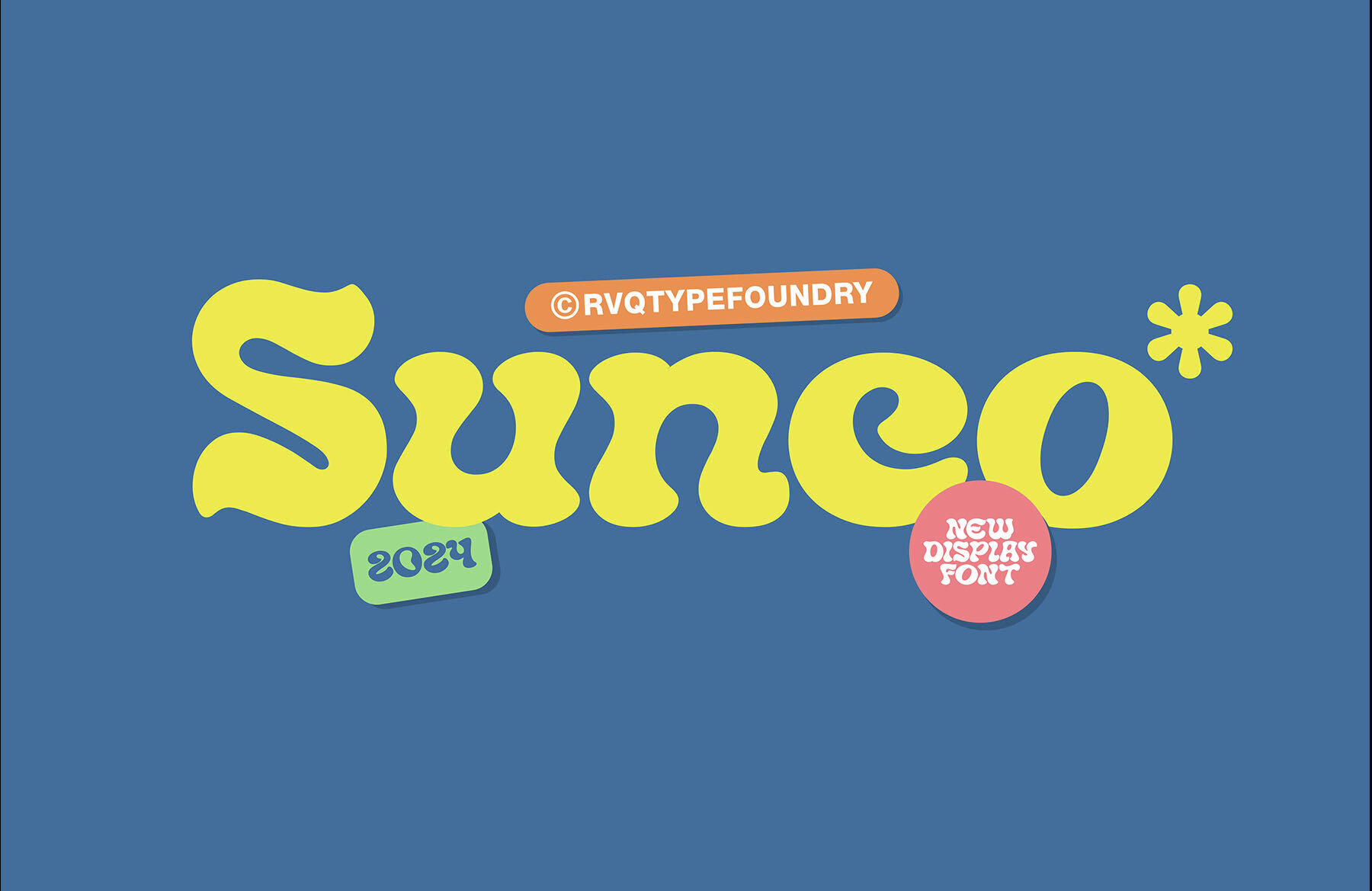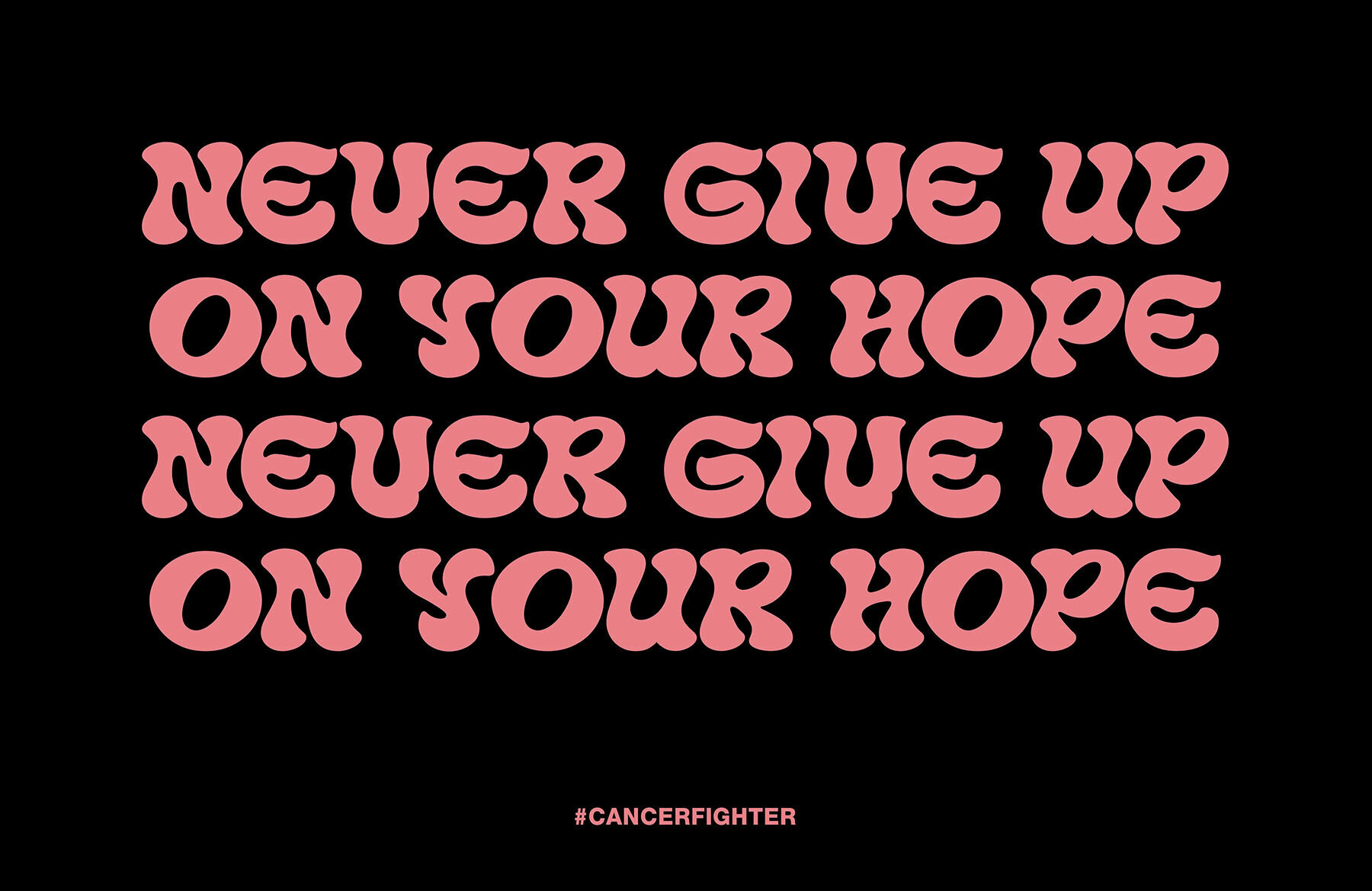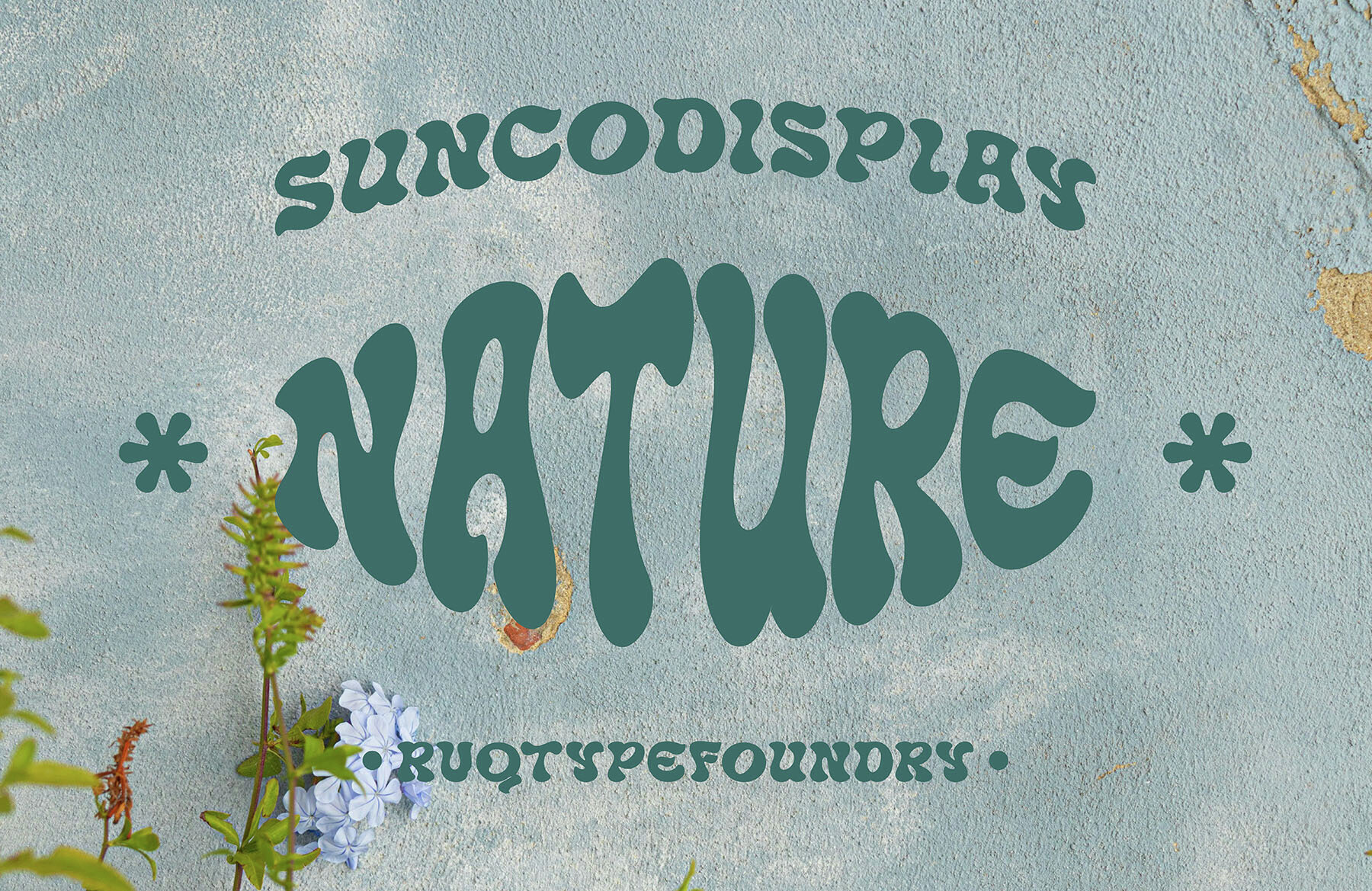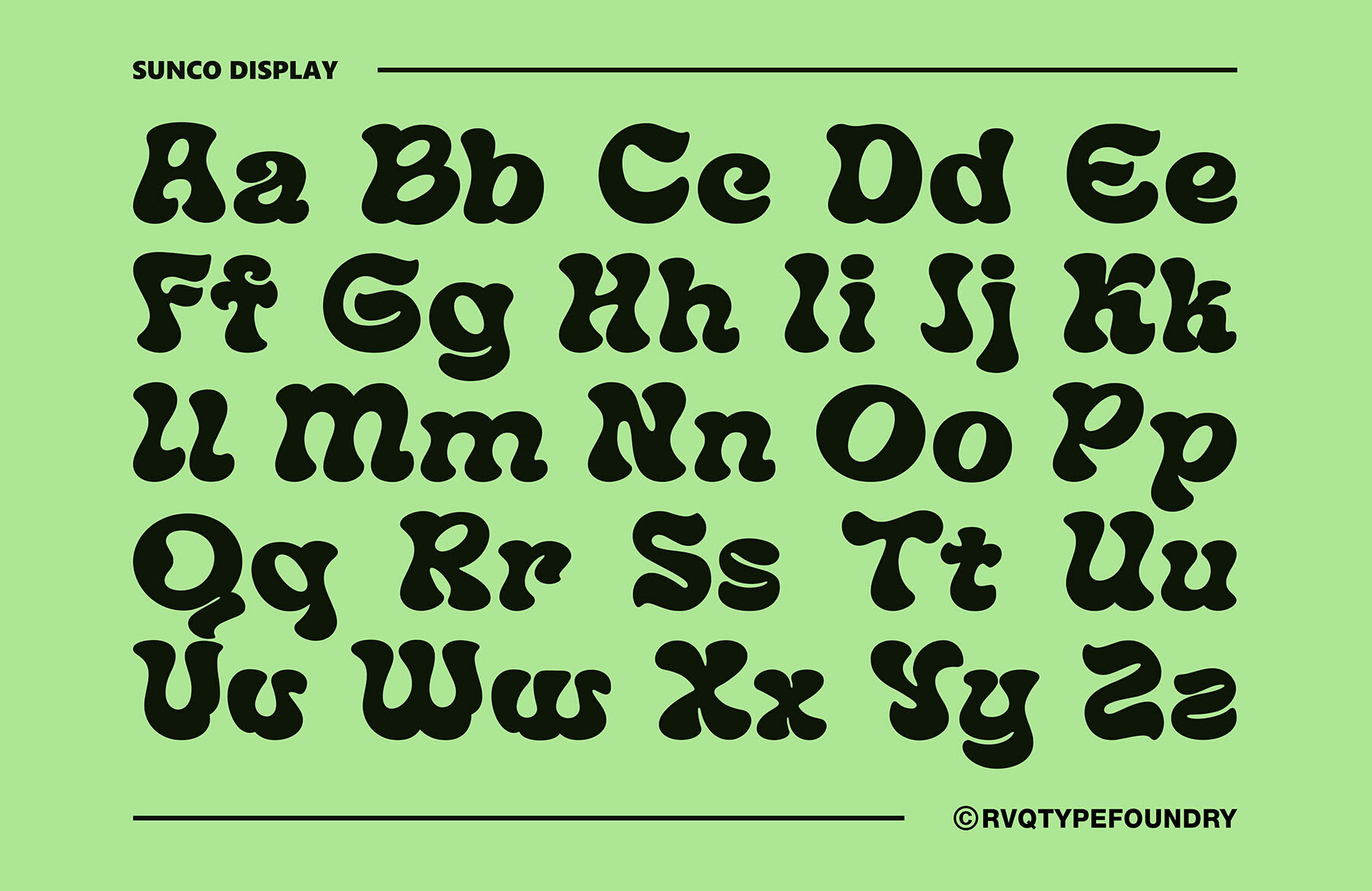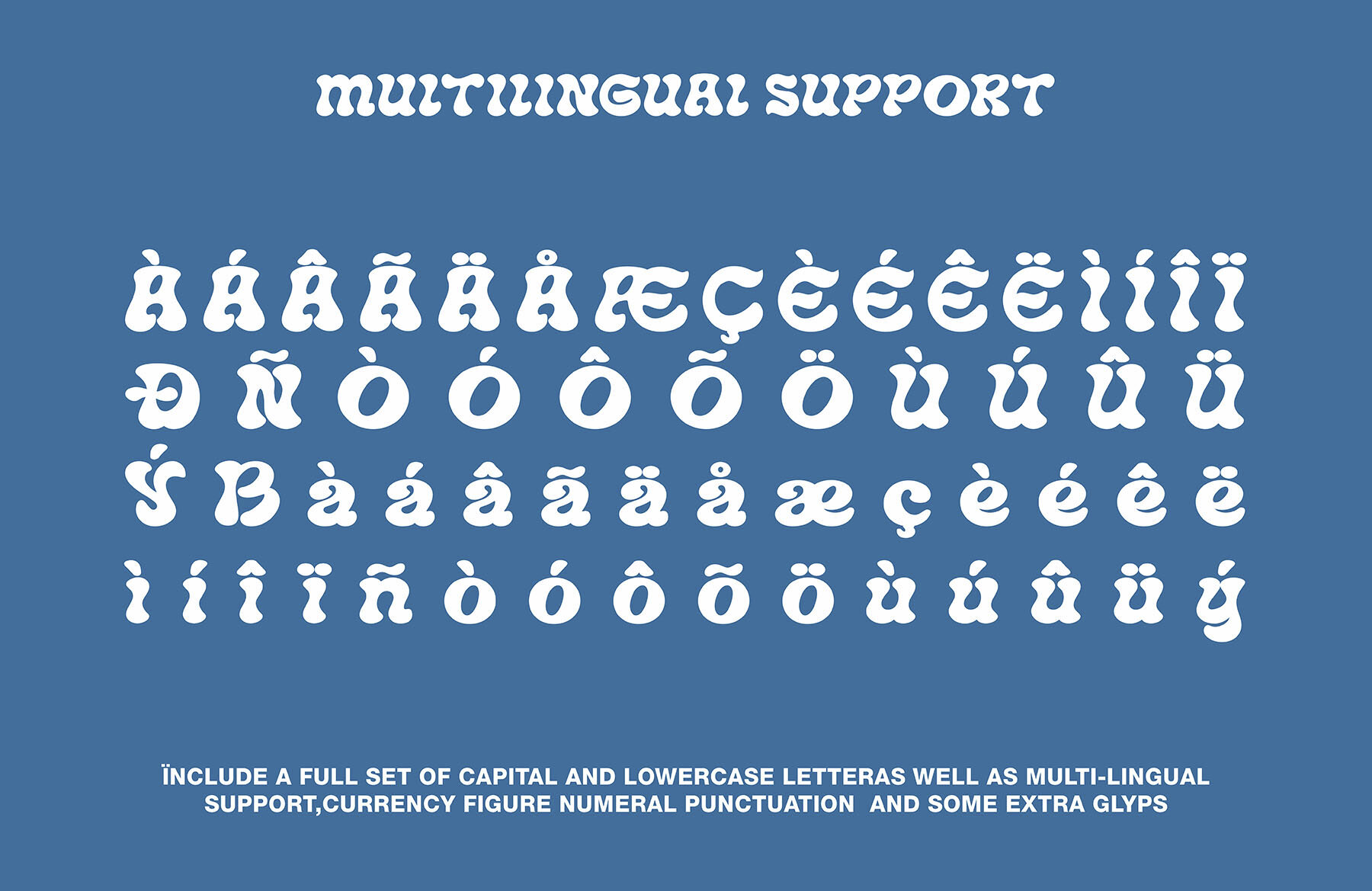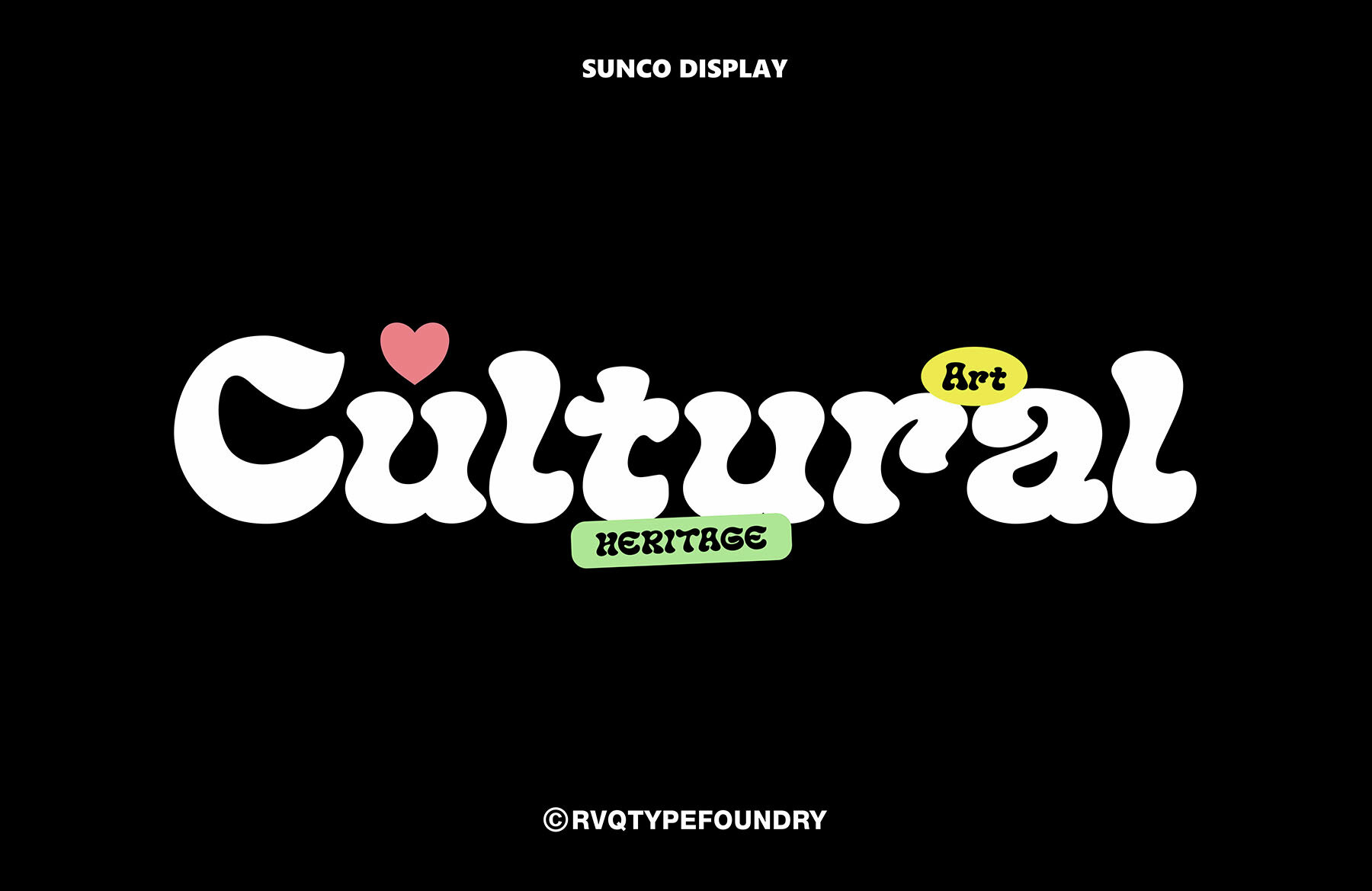
Sunco Display Font
The sunco Display is new font unic style , elegant and retro feel character set. To create the beautiful combination, just mix the uppercase and lowercase .The sunco Display Style font includes a full set of capital and lowercase letters, as well as multi-lingual support, currency figures, numerals, punctuation & some extra glyphs. The sunco Display Font equipped with : The sunco Display font is suitable font for many creative products Design and easy use.